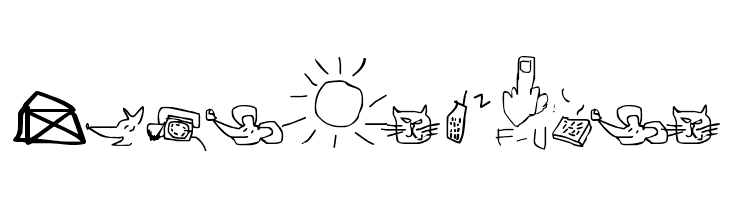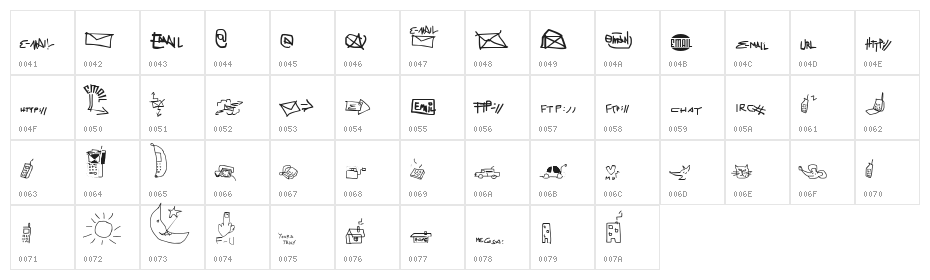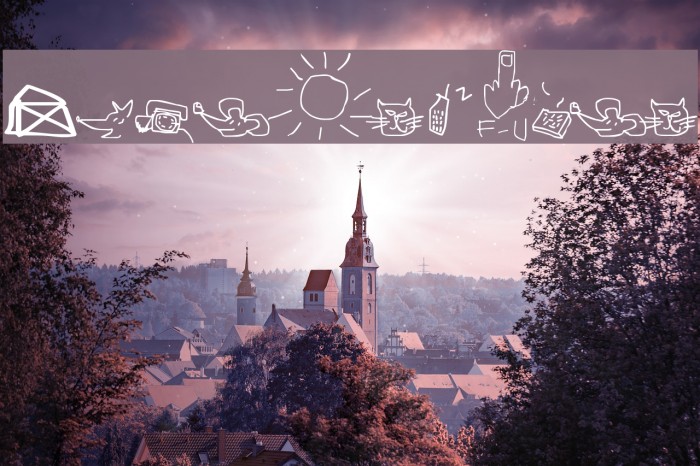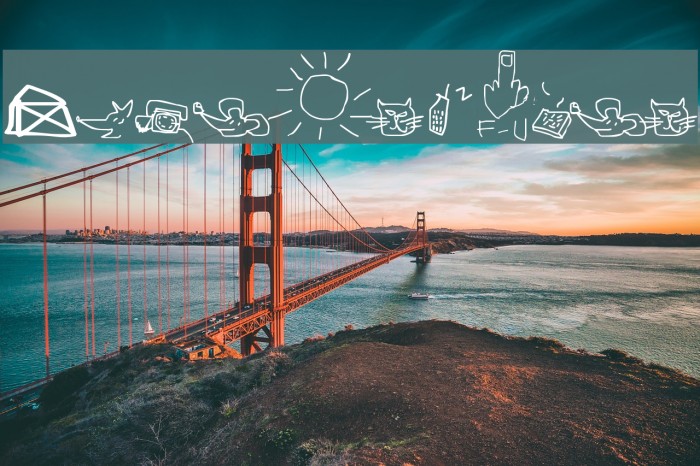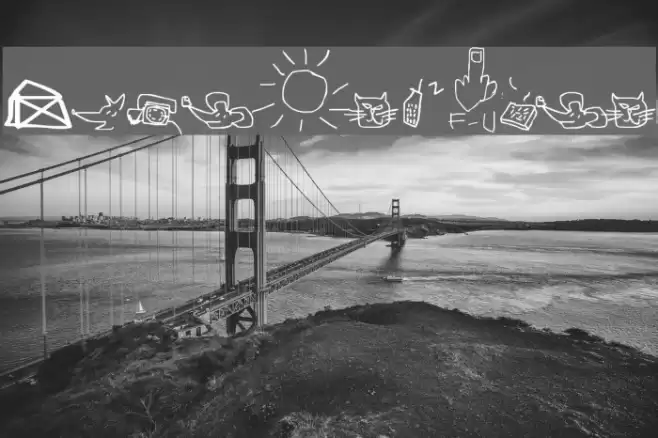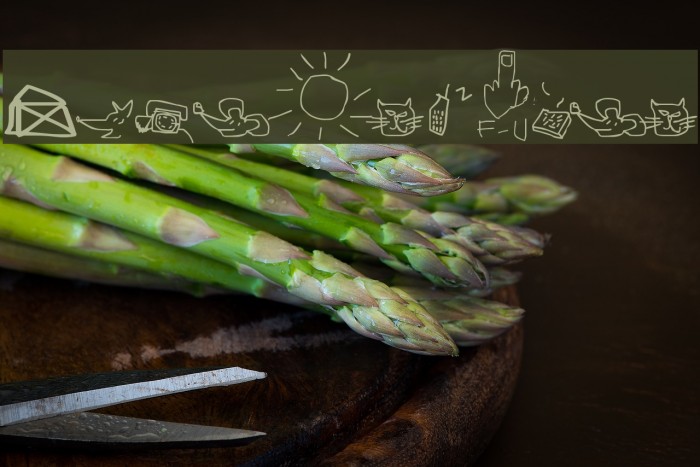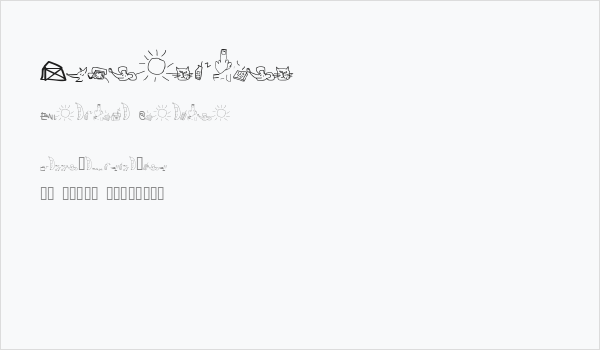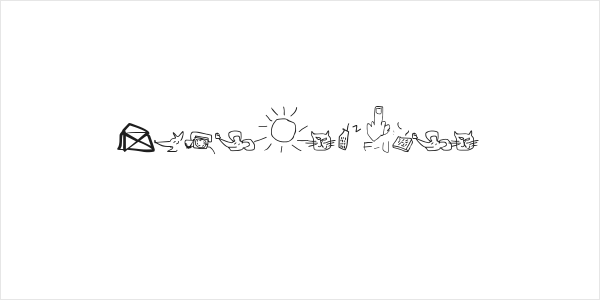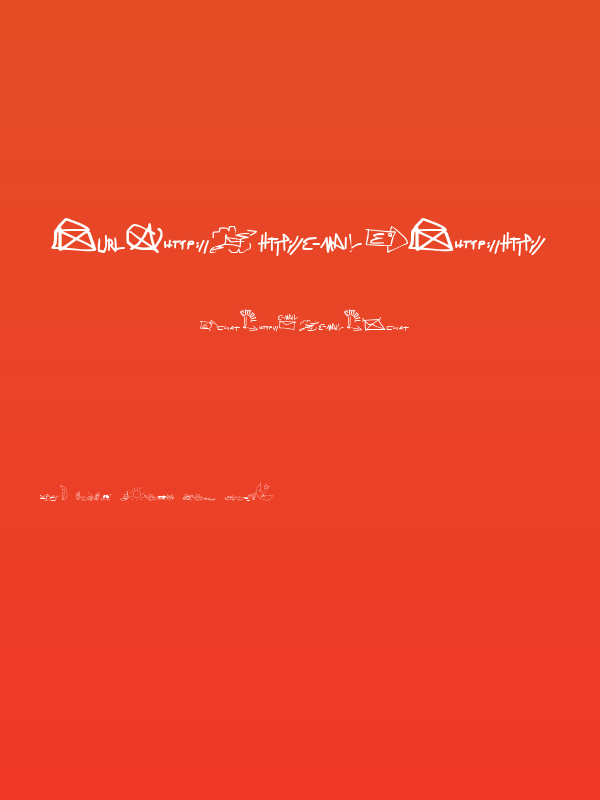
Imfornation Font
Imfornation Description
A highly decorative, hand-drawn dingbat font featuring a mix of communication-themed icons, whimsical sketches, and playful symbols. The glyphs include envelopes, phones, computers, vehicles, celestial objects, and various abstract shapes, all rendered in a loose, sketchy style.
| Overall Style | Whimsical, Playful, Hand-drawn, Decorative |
| Use Case | Icons, Decorative elements, Thematic illustrations, Informal headings |
| Proposed Projects | ChildrenΓ’β¬β’s books, playful branding, educational materials, informal invitations, creative web design, comics. |